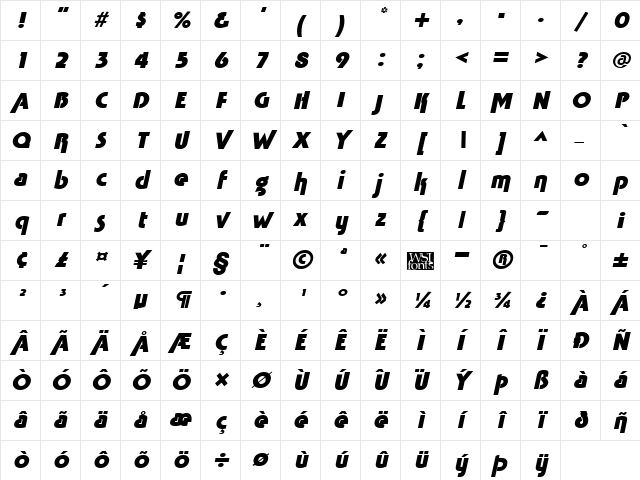
TabathaHeavy kursiv
Style: kursiv
Design Context for TabathaHeavy
TabathaHeavy is a composed and adaptable typeface that performs quietly and consistently across a wide range of design contexts. The slanted form adds forward momentum and visual energy.